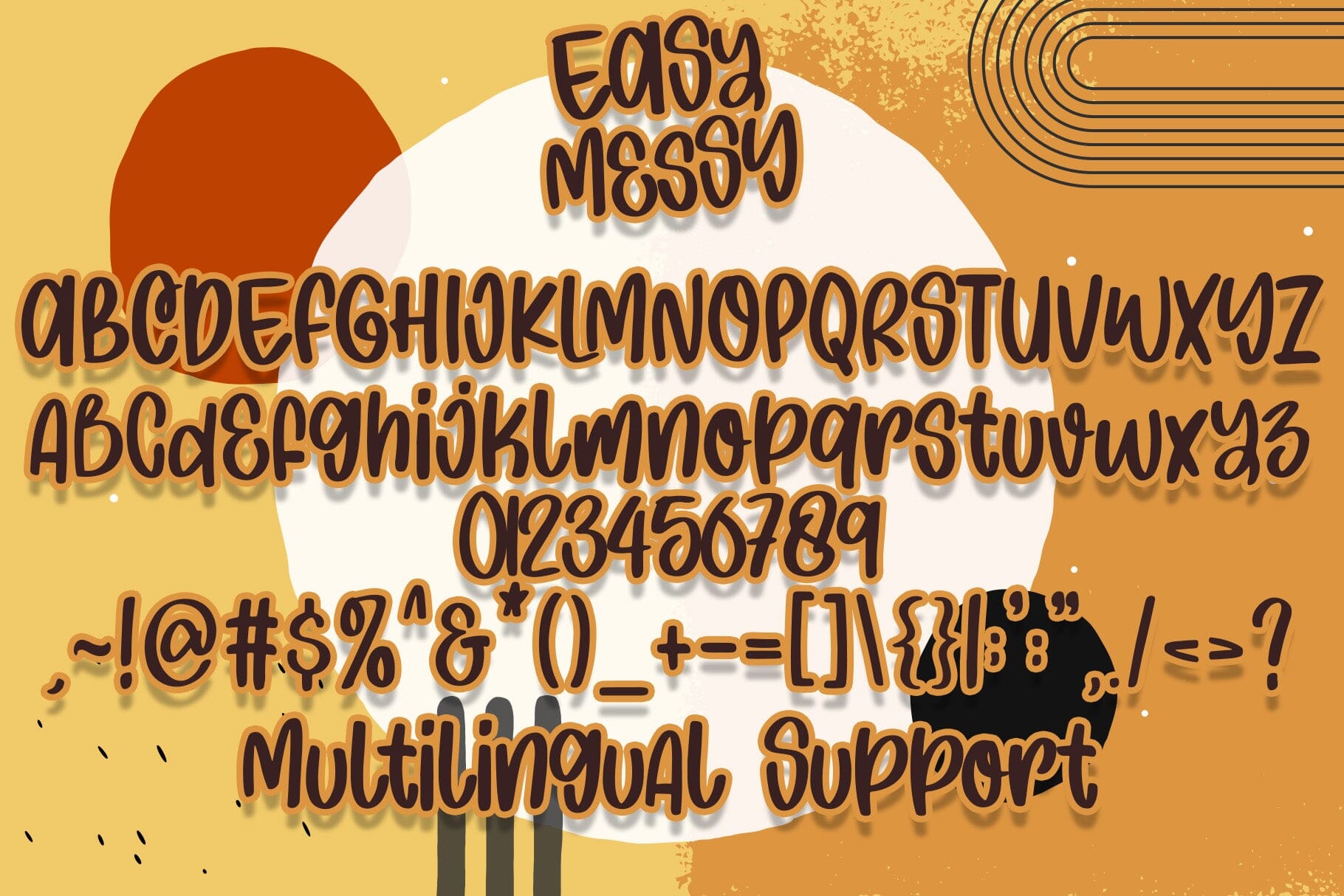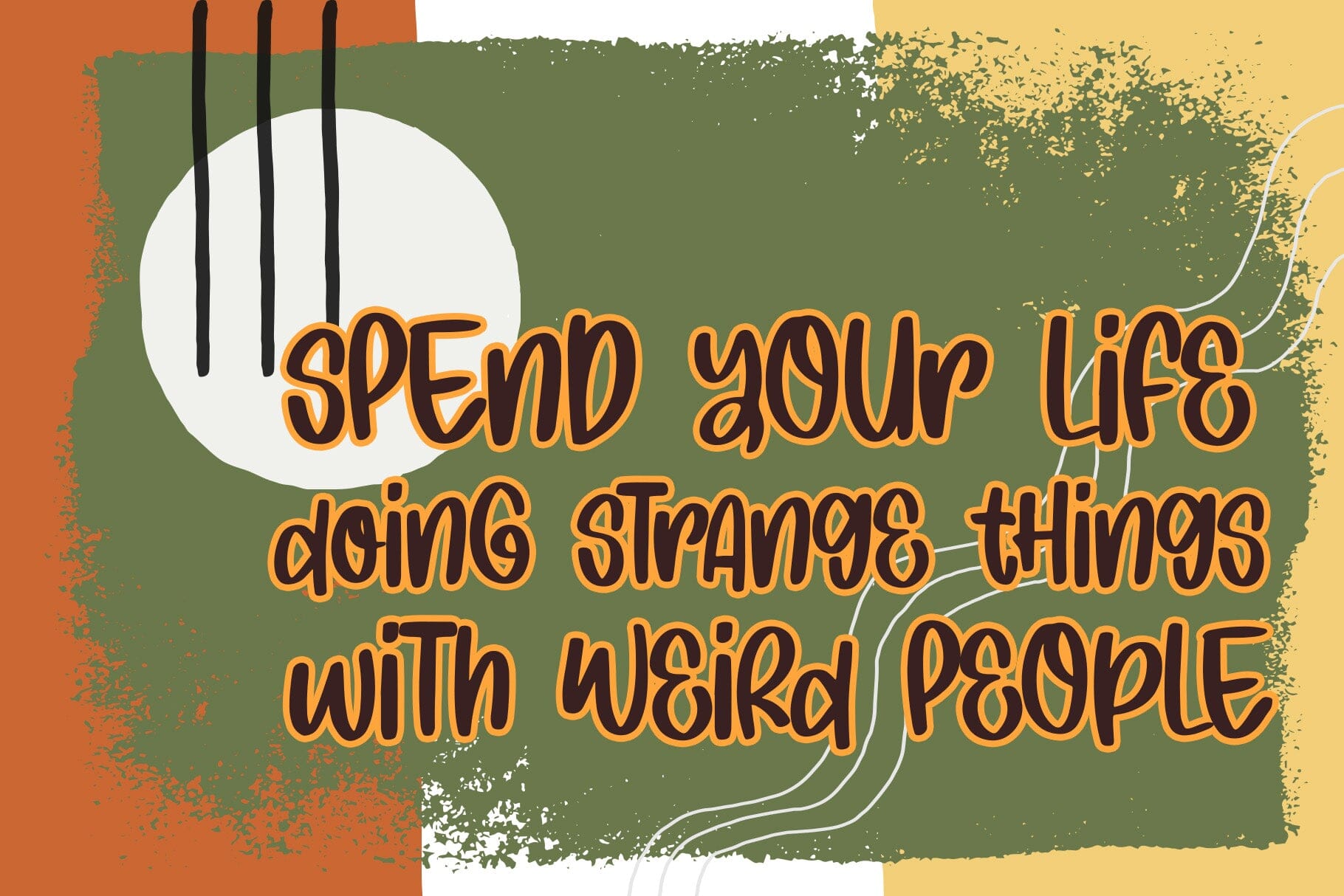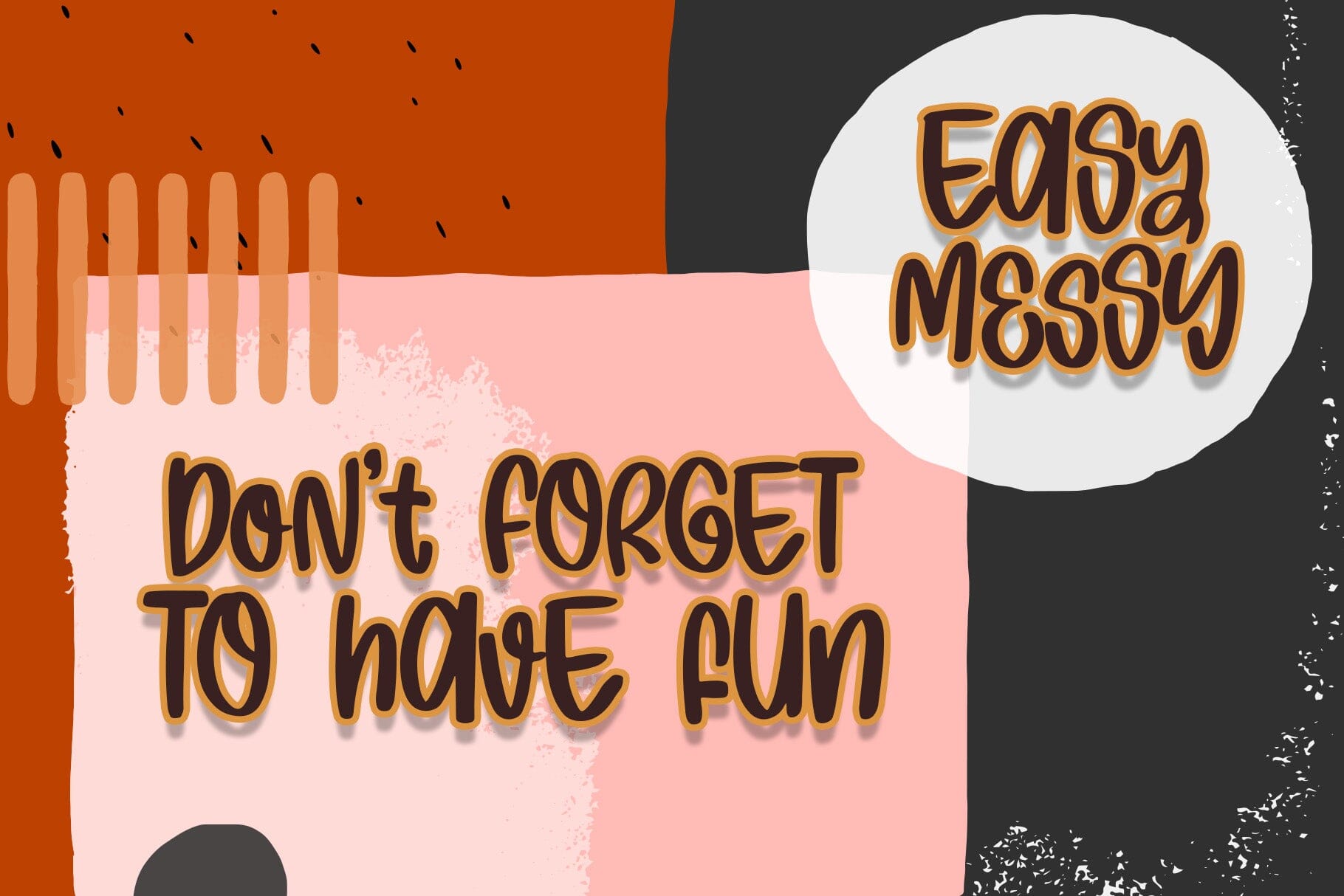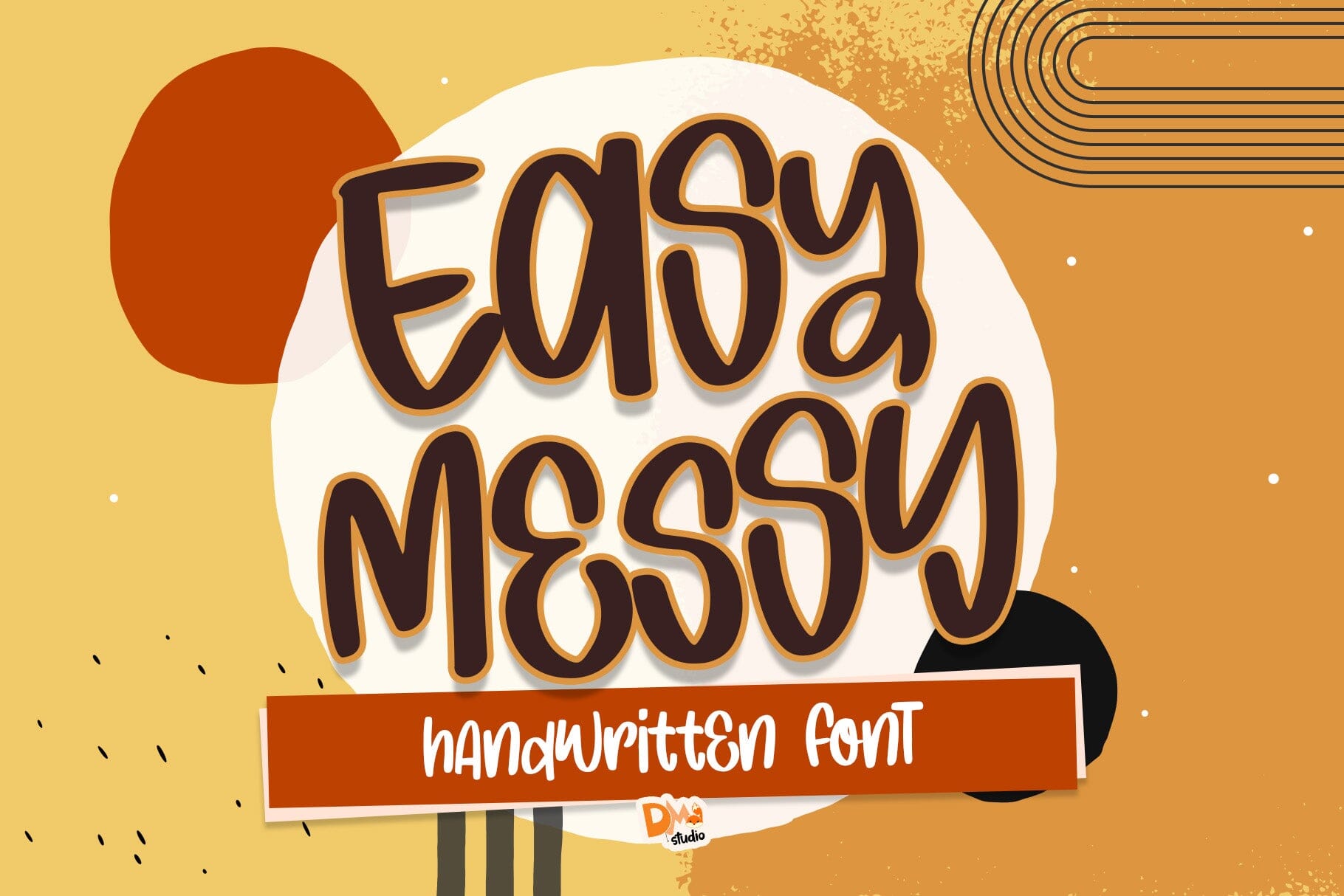
Easy Messy Font: Free Handwritten Typeface for Authentic Designs
Why Designers Love This Font
In an era of overly polished digital aesthetics, the Easy Messy Font stands out with its authentic hand-drawn character. Unlike rigid sans-serif fonts, its uneven baseline and variable stroke widths create approachable, human-centric designs.
- ✅ Full character set: Supports English, German, French & Spanish (A-Z, numbers, symbols)
7 Creative Ways to Use Easy Messy Font
- Social Media Branding: Create Instagram story templates that feel personal and unpolished
- Etsy Shop Graphics: Design “handmade” product labels for candles, soaps, or art prints
- Wedding Stationery: Craft rustic invitations and place cards with uneven charm
- Blog Post Headers: Break up long-form content with organic-looking titles
- YouTube Thumbnails: Add casual text overlays to video previews
- Packaging Design: Mimic hand-lettered labels for small-batch products
- Personal Branding: Develop a “less curated” aesthetic for coaching websites
Design Tips for Maximum Impact
- 🎨 Contrast is key: Pair with minimalist geometric fonts like Poppins
- 🎨 Color psychology: Use warm earth tones to enhance handmade feel
- 🎨 White space matters: Allow 15-20% blank space around text elements